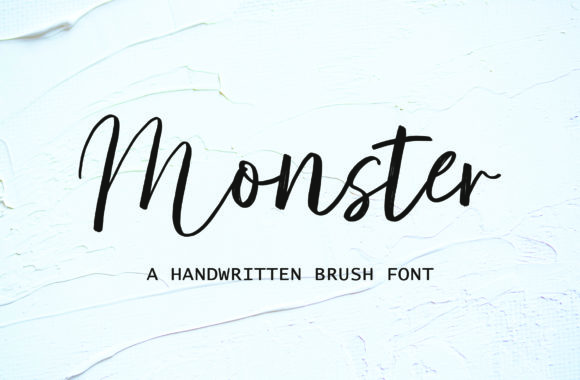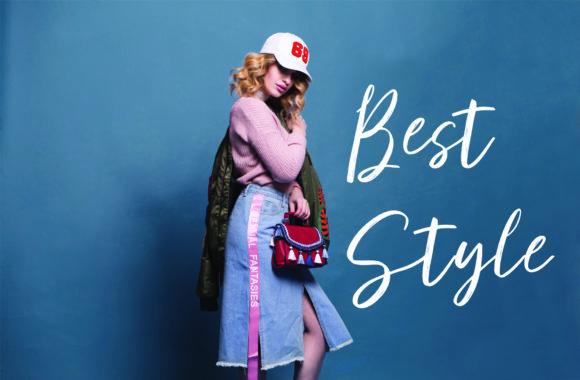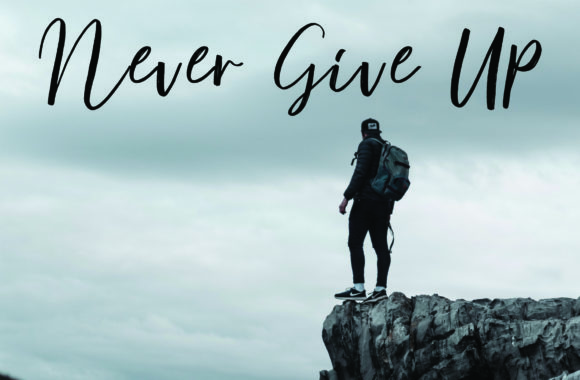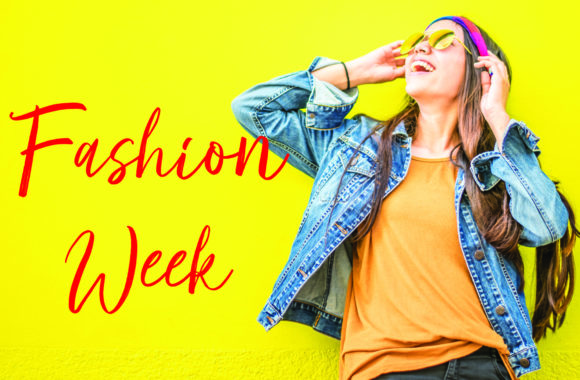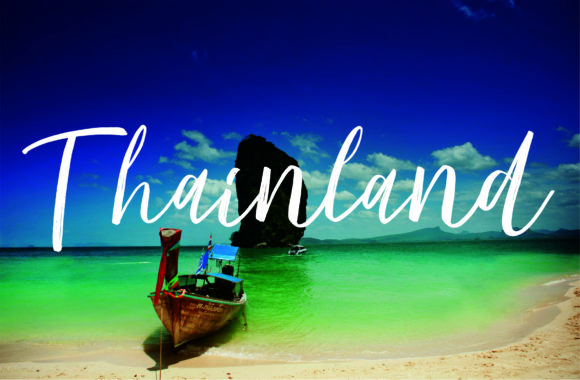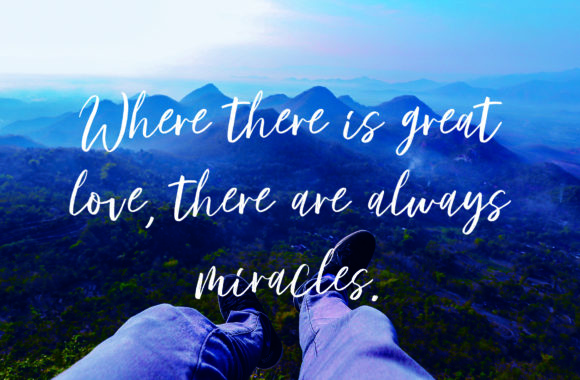
Monster Font
About Monster Font
Monster is a relaxed and cursive brushed script font. It is the best choice for creating eye catching logos, branding and quotes. Every letter has a unique and beautiful touch, which will make your design come alive!